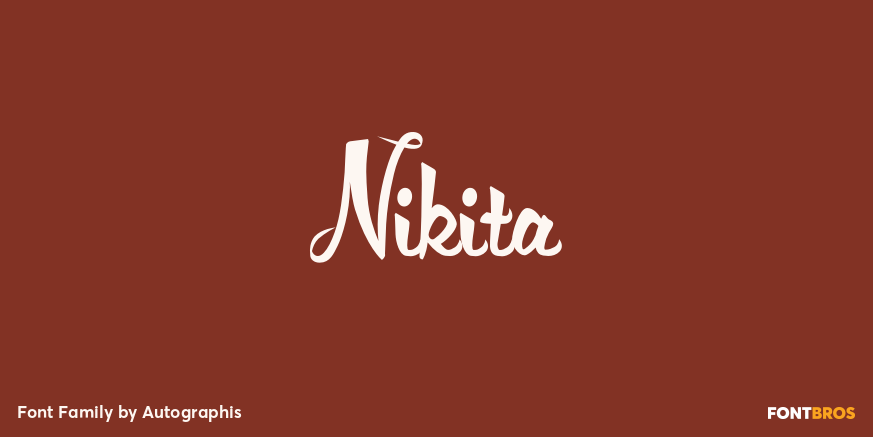
HomeFont BrosRetro (1936-1965)Nikita Retro (1936-1965)Scripts: FormalScripts: Casual Nikita FacebookXPinterestWhatsApp 1 of 1 About Nikita Nikita is a very lively upright script with lots of 1950s flair.  DOWNLOAD ON FONT BROSThis font is sold and delivered by Font Bros. Font Canyon may earn a commission if you buy through this link. People also explored Rogueland Font Dark Witches Font Le Amatcky Font Aidah Font Design System D Cahaya Alami Font Hellios Gothic Font MFC Aldercott Monogram Loisbeauty Font 470 0 TagsNikitaNikita Font Previous articleSteak and CheeseNext articleGalathea LEAVE A REPLY Cancel reply Comment: Please enter your comment! Name:* Please enter your name here Email:* You have entered an incorrect email address! Please enter your email address here Website: Save my name, email, and website in this browser for the next time I comment. Personal Use Free BD Algebra Personal Use Free Read more about this font The Kingdom Personal Use Free Read more about this font Arabella Script Personal Use Free Read more about this font Adriator Personal Use Free Read more about this font BLOG Exploring Font Trends Shaping Communication in the Digital Era Fonts, like all design elements, are subject to trends. They play a crucial role in communicating a brand's personality,... To increase your work productivity, choose the most readable fonts. Using Fonts in Digital Marketing: Tips to Strengthen Your Brand Identity 5 Fonts That Will Dominate Design Trends in 2026